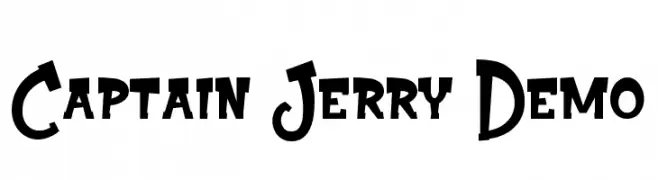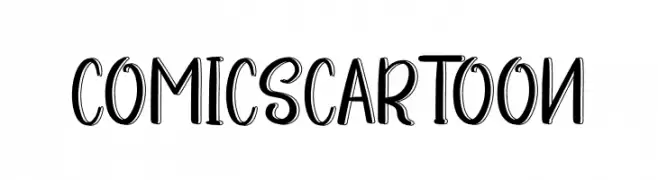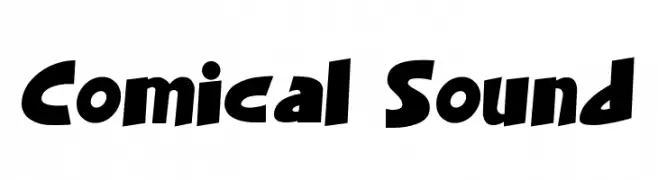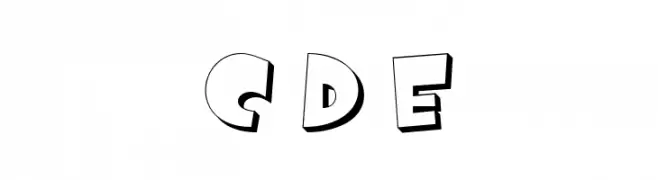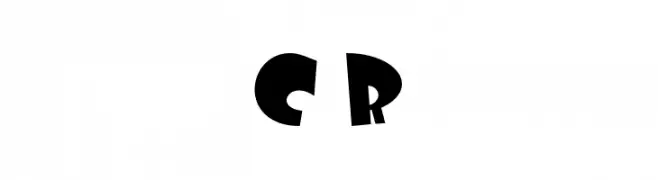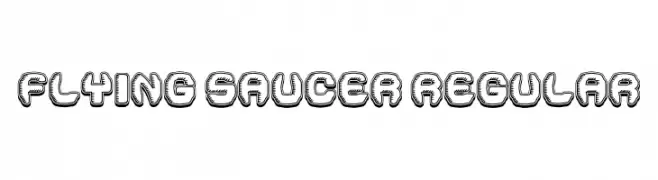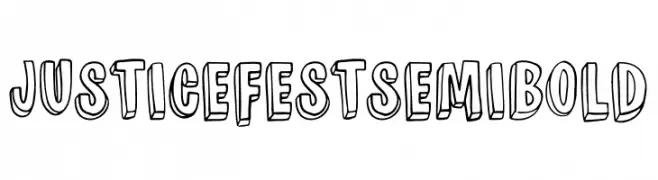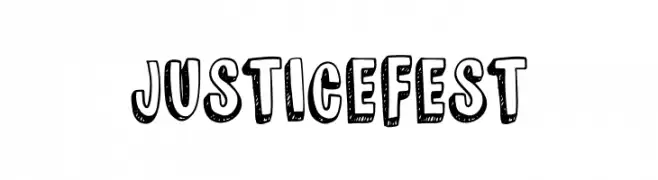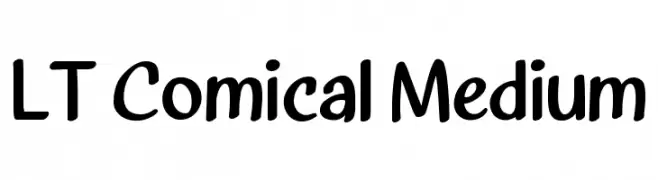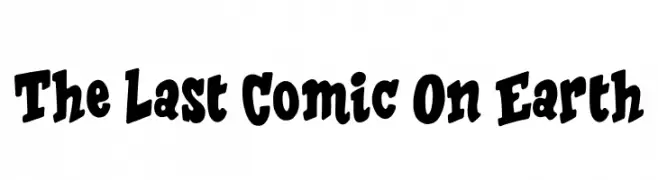
A bold, playful font with a comic book style and dotted interiors.
A bold, 3D comic-style font with shadow effects and uppercase letters.
A playful, 3D bubble-like font with retro comic book aesthetics.
A playful, cartoon-style font with bold, rounded characters.
A playful, bold font with irregular, cartoonish shapes and dynamic style.
A bold, 3D extruded font with a playful, cartoonish style.
A playful, bold font with cartoonish, exaggerated letterforms.
A playful, bold font with cartoonish, exaggerated curves and a lively appearance.
A playful, hand-drawn style font with rounded edges and consistent stroke width.
A bold, playful font with a hand-drawn, comic book style.